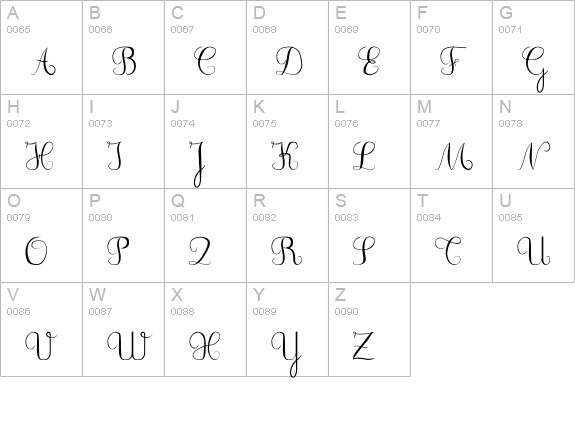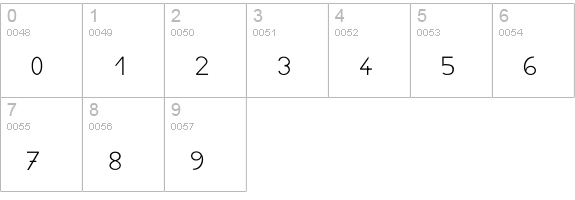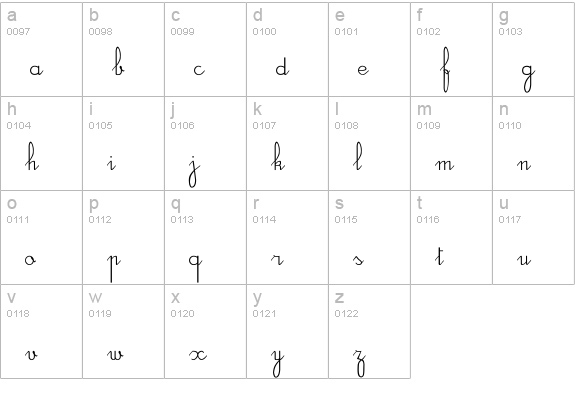
DuCahier 2 Cursive scolaire Font Details
DuCahier 2 Cursive scolaire is a beautiful and elegant font that exudes sophistication and charm. Its flowing cursive style adds a touch of class to any design, making it perfect for invitations, greeting cards, and other creative projects. With its smooth curves and intricate details, DuCahier 2 Cursive scolaire is sure to stand out and make a lasting impression. The best part? DuCahier 2 Cursive scolaire is completely free for personal and commercial use. You can easily download this stunning font at FontsMarket.com and start using it in your projects right away. Don't miss out on this amazing opportunity to elevate your designs with DuCahier 2 Cursive scolaire – download it now and let your creativity shine!